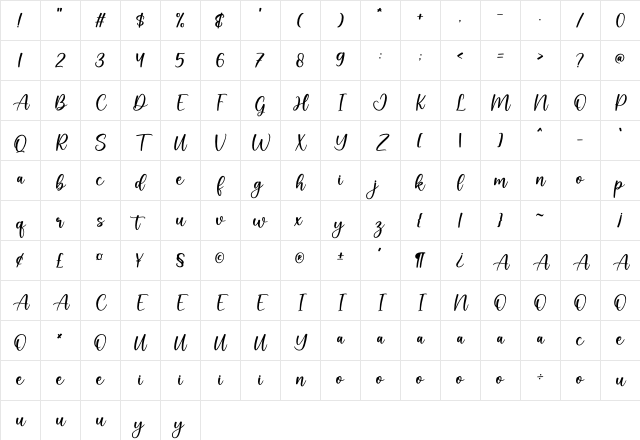
Farmhouse Regular
Foundry: Graphix Line Studio
Designer: Aldi Raya Pradipta
Design Context for Farmhouse
Farmhouse is a composed and adaptable typeface that performs quietly and consistently across a wide range of design contexts.